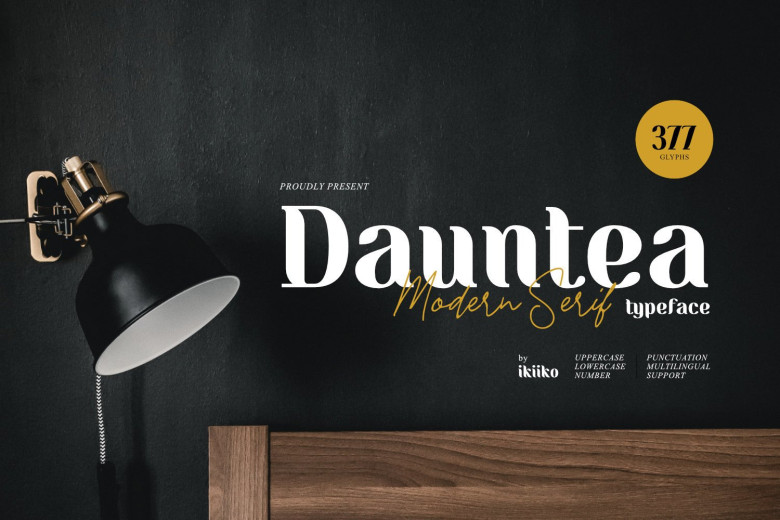
Dauntea Font
Dauntea, designed by ikiiko, is an eye-catching serif font with a distinct design, inspired by leaf shapes with their characteristic tail characters on uppercase letters. Dauntea offers a calm and serene impression which makes it great for logo designs for branding, magazines or home and decor layout packaging, beauty product quotes or simply as stylish text overlay on any background image.
Dauntea Serif Font